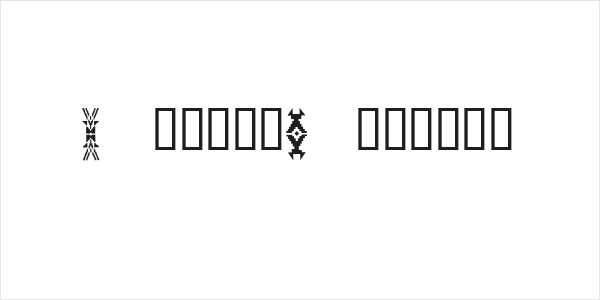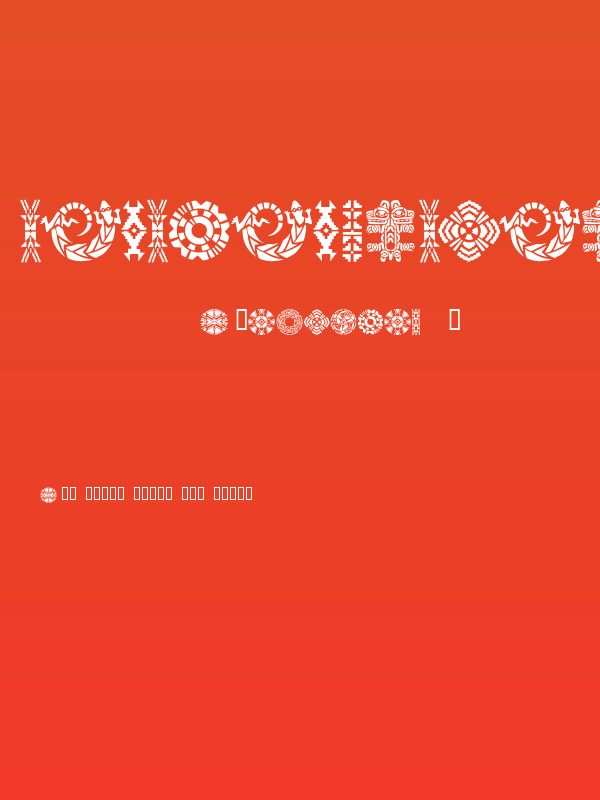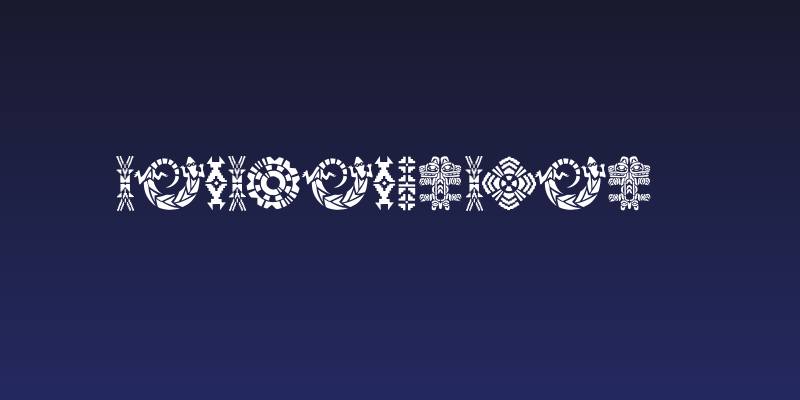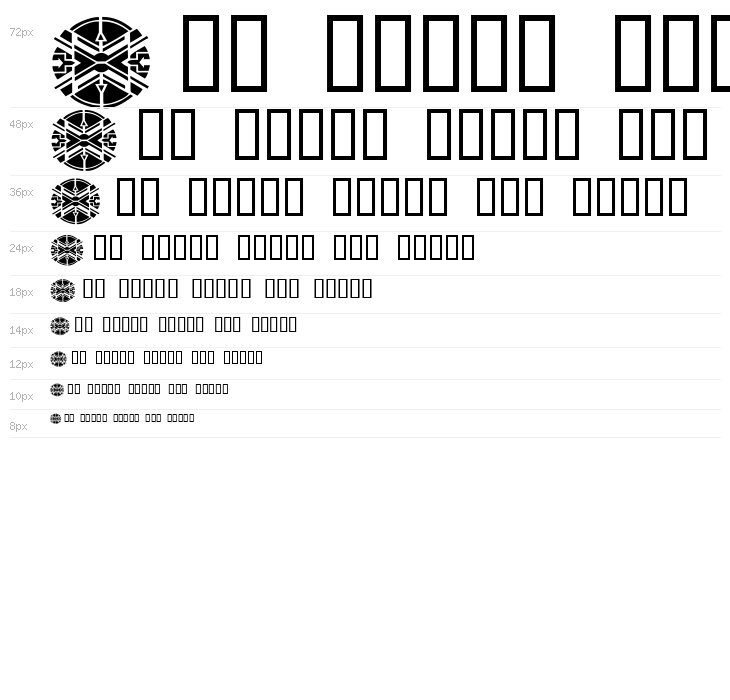
IndianDesigns Font
IndianDesigns Description
A highly decorative display font featuring intricate geometric and tribal-inspired motifs within circular and rectangular forms, evoking traditional Indian textile and craft patterns. Each character is uniquely stylized with bold, complex linework and symmetrical arrangements.
| Overall Style | Decorative, Ethnic, Geometric |
| Use Case | Logos, Headlines, Posters, Decorative elements |
| Proposed Projects | Branding for cultural events, ethnic-themed posters, packaging, textile design, invitations, and logo design. |